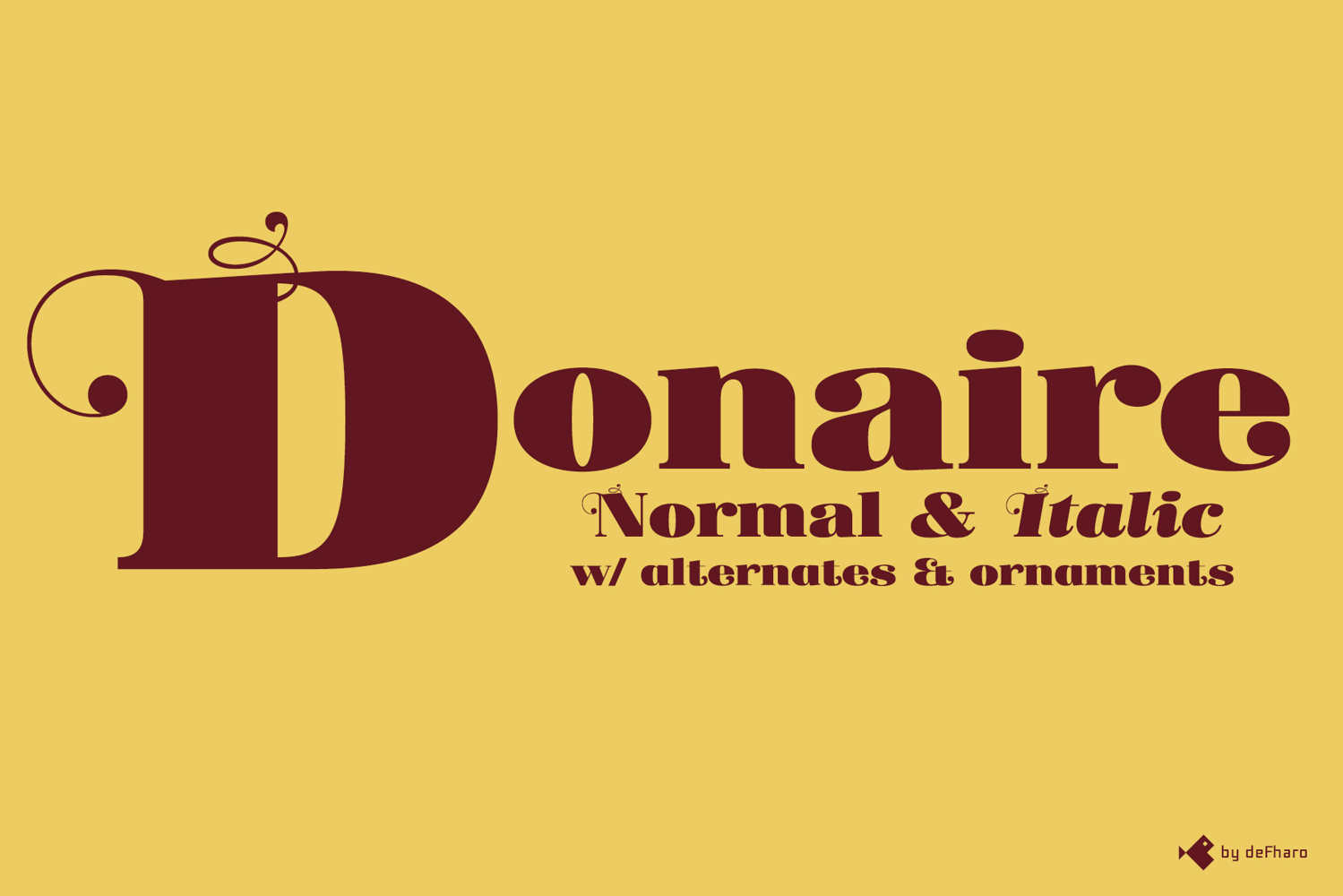
Donaire | Regular & Italic | Ornaments
Donaire is my current interpretation of the classic Didonas, a modern Didona that pays homage to the elegant fat-face fonts that emerged in the late 18th century.
Inspired by modernist and historical aesthetics, I designed Donaire to capture the essence of those typefaces.
Donaire, with a square proportion, combines the visual strength of thick vertical lines and thin horizontal lines, accompanied by the delicacy of transitional serifs and teardrop endings, achieving a perfect balance between legibility and visual impact.
Two versions, multiple possibilities
Roman: Pure vertical strokes, perfect for headlines and designs that demand clarity and strength.
Italic (10° slant): With lowercase letters that mimic calligraphy, ideal for emphasizing text with a dynamic and refined touch.
Both versions include 50 exclusive ornaments and symbols, alternate characters, and advanced OpenType features such as dynamic fractions, arrows, and ligatures, expanding its versatility in editorial, branding, and packaging projects.
I've implemented precise optical corrections in Donaire to ensure balanced reading and a striking aesthetic, ideal for projects that require a historical yet modern image.
Donaire is perfect for a wide variety of uses: from historical publishing and publications to modern branding and graphic design projects.